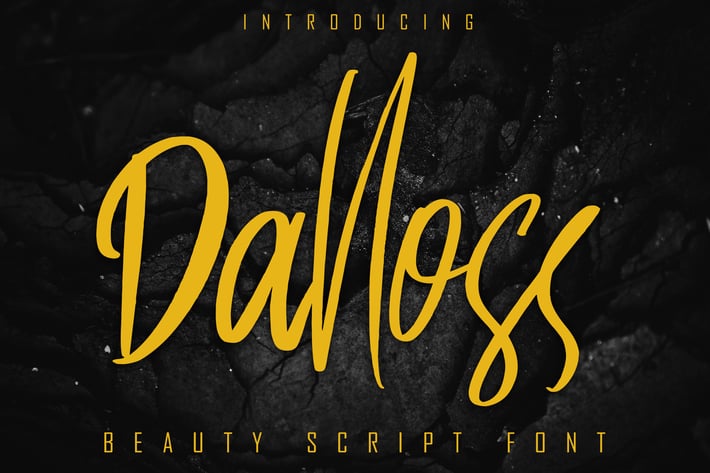
Dalloss Beauty Script Font
Dalloss is a beautiful font neatly arranged and elegant, there are several ligature san basic multilingual support and complete with PUA encoded Character.
suitable for design, decorative, promotional, banner, poster, flyer, presentation and brand or your company
Ligature\
Basic Latin Language Support (AÀÁÂÃÄÅCÇDÐEÈÉÊËIÌÍÎÏÑOØÒÓÔÕÖUÙÜÚÛWYÝŸÆß )